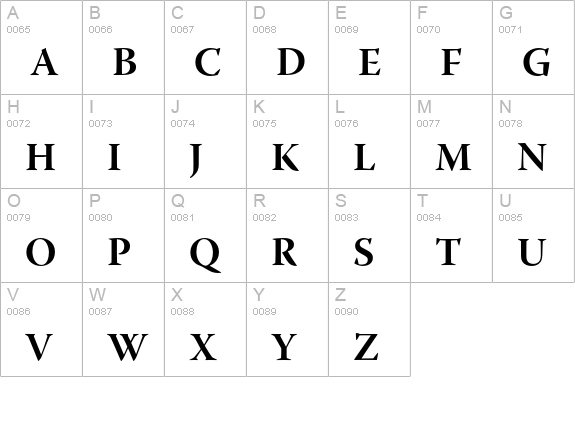
Warnock Pro Bold Subhead Font Details
Warnock Pro Bold Subhead is a strong, high-contrast variant in the Warnock typeface family \xE2\x80\x94 well suited to headlines, attention-grabbing titles, and strong calls-to-action.
The Warnock Pro Bold Subhead font is a visually striking typeface that exudes confidence and elegance. With its bold and commanding presence, it is perfect for creating impactful subheadings and headlines that instantly grab attention. Designed with precision and attention to detail, this font offers a unique blend of classic and contemporary elements. Its thick, well-defined strokes and clean lines give it a strong and authoritative look, making it ideal for conveying important messages or emphasizing key points in your designs. One of the standout features of the Warnock Pro Bold Subhead font is its versatility. It can be used in a wide range of design projects, from print materials such as magazines and posters to digital designs like websites and social media graphics. Whatever the medium, this font will add a touch of sophistication and professionalism to your work. What makes this font even more appealing is that it is freely available to download at FontsMarket.com. This means that you can easily access and use this font in your projects without any hassle. Whether you are a professional designer or a hobbyist, having access to high-quality fonts like Warnock Pro Bold Subhead can greatly enhance your creative endeavors. So, if you are looking to make a bold statement with your typography, look no further than the Warnock Pro Bold Subhead font. Its powerful and versatile design, combined with its free availability, make it a must-have for any designer or creative individual. Download it today and elevate your designs to new heights of visual impact.